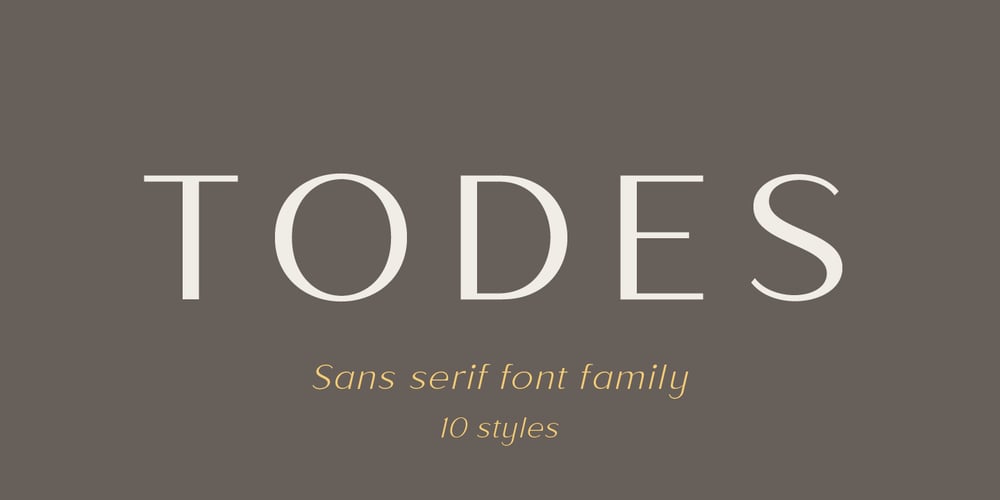
Todes
Todes font
Todes Font Family was designed by Pavel Larin and published by Larin Type Co. Todes contains 10 styles and family package options. Todes is an elegant and modern sans-serif font family. It includes upright and Italic style, each of them has five weights from light to bold. This is a multi-purpose font that is perfect for any project, it is contrasted, modern and easy to read. With it, you can create logos, use in advertising, packaging, book covers and magazines, headings, descriptions and much more.Todes includes stylistic alternates and ligatures, with them you can add dynamics to the font and make your project more individual. This font is easy to use has OpenType features.